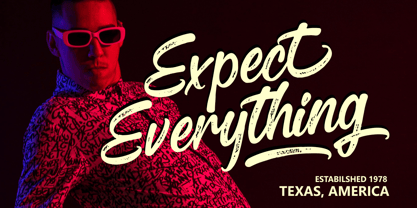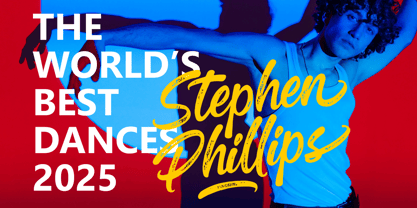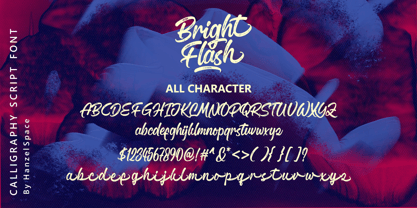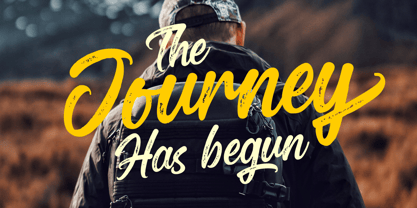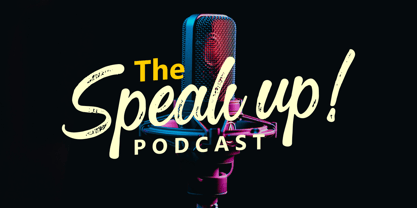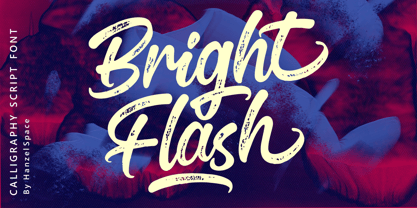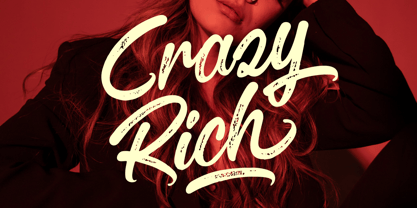
Bright Flash
by Hanzel Space
The Bright Flash Font Family was designed by Hanief Farandi and published by Hanzel Space. Bright Flash contains 1 styles.
Bright Flash – Calligraphy Script Font – A very cool script based on a textured handwritten script. This type of font is perfectly made to be applied especially in logos, and the other various formal forms such as invitations, labels, logos, magazines, books, greeting / wedding cards, packaging, fashion, make up, stationery, novels, labels or any type of advertising purpose. Features: Uppercase & Lowercase Numerals & Punctuation Ligatures Multilanguage Supports Swash Thanks so much for checking out my shop! Cheers! Happy Creating! Hanzel Space Studio
Bright Flash